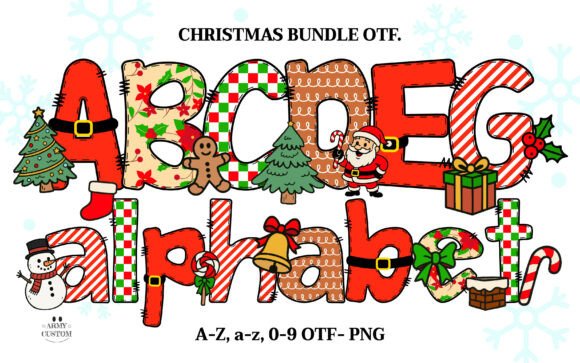
Introducing the Christmas Army Bundle Font: A Whimsical Addition to Your Holiday Design Toolkit
Are you looking for a font that embodies the spirit of the holiday season? Look no further than the Christmas Army Bundle Font, a playful and vibrant 5-styled color font that’s sure to add a dash of merriment to any design project. Inspired by the adorable antics of Santa’s helpers, this charming, elfish font is the perfect choice for creating joyful holiday decorations, greeting cards, and more.
A Font that’s Full of Whimsy and Fun
The Christmas Army Bundle Font is imbued with a sense of whimsy, making it an ideal choice for designers who want to create holiday designs that are a little bit quirky and a lot of fun. Its jovial style is reminiscent of the magic and wonder of the holiday season, and is sure to put a smile on the face of anyone who sees it.
Whether you’re creating holiday decorations, gift tags, or social media graphics, this font is sure to add a touch of festive flair to your designs. And with its 5-styled color font, you can mix and match different colors to create a unique and eye-catching look that’s all your own.
Why Choose the Christmas Army Bundle Font?
So why choose the Christmas Army Bundle Font over other holiday fonts on the market? Here are just a few reasons why this font stands out:
• Unique and playful style: This font is unlike any other holiday font on the market, with its whimsical and jovial style that’s sure to add a touch of magic to your designs.
• High-quality design: The Christmas Army Bundle Font is designed to the highest standards, with crisp and clear lines that look great in any size or format.
• Versatile: The Christmas Army Bundle Font can be used for a wide range of design projects, from holiday decorations to social media graphics and more.
Tips for Using the Christmas Army Bundle Font
Here are a few tips for getting the most out of the Christmas Army Bundle Font:
• Experiment with different colors: The Christmas Army Bundle Font comes in a range of colors, so don’t be afraid to experiment and find the perfect combination for your design.
• Use it for holiday decorations: This font is perfect for creating holiday decorations, such as gift tags, garlands, and more.
• Add it to your social media graphics: The Christmas Army Bundle Font is a great way to add a touch of festive flair to your social media graphics, such as holiday-themed Facebook posts and Instagram stories.
• Pair it with other fonts: Don’t be afraid to pair the Christmas Army Bundle Font with other fonts to create a unique and eye-catching look.
The Christmas Army Bundle Font is a unique and playful addition to any holiday design toolkit. With its whimsical and jovial style, this font is sure to add a touch of magic to your designs and put a smile on the face of anyone who sees it. Whether you’re a designer, crafter, or maker, this font is a must-have for the holiday season.